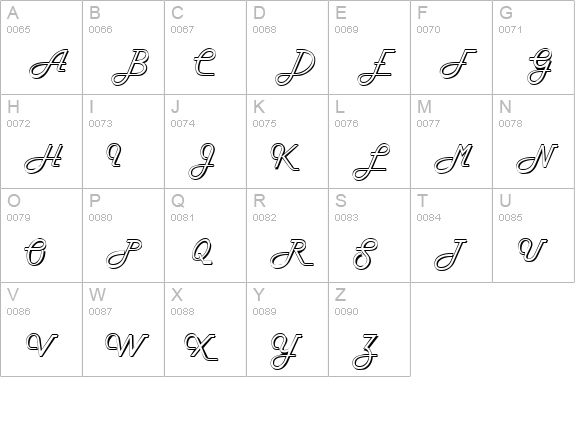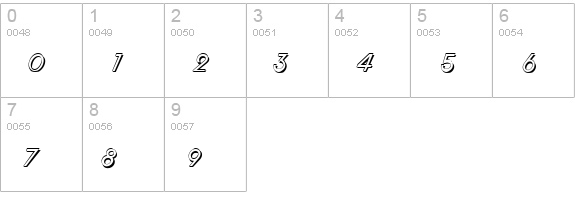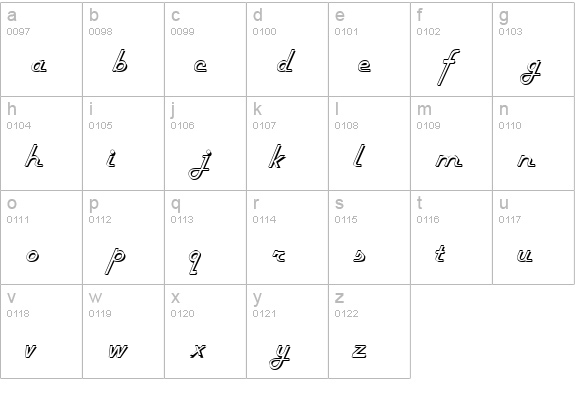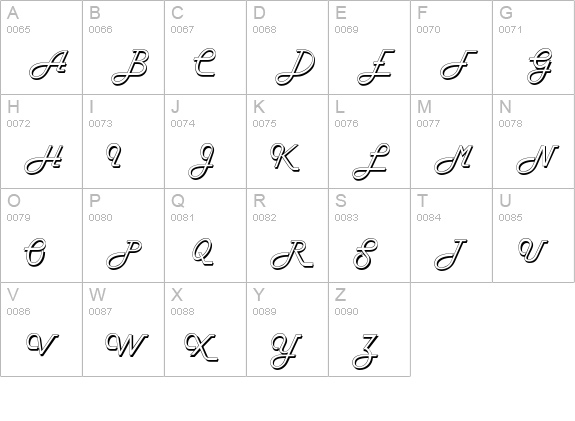
Tubula Script SSi Font Details
The Tubula Script SSi font is a captivating and versatile typeface that exudes elegance and sophistication. Its flowing cursive strokes and delicate curves lend a sense of beauty and charm to any design project. With its unique and contemporary design, Tubula Script SSi is perfect for a wide range of applications, including wedding invitations, branding materials, logos, and more. Its graceful letterforms effortlessly capture attention, making it an ideal choice for adding a touch of class to any design. One of the most appealing aspects of Tubula Script SSi is that it is available for free. Yes, you read that right - this stunning font can be freely downloaded from FontsMarket.com. This means that you can easily incorporate it into your designs without any hassle or cost. Whether you are a professional designer or just someone looking to add a touch of elegance to your personal projects, Tubula Script SSi is the perfect font choice. Its versatility and beauty make it a valuable addition to any font collection. Don't miss out on the opportunity to enhance your designs with this stunning and freely available font. Download Tubula Script SSi today from FontsMarket.com and elevate your designs to new heights.